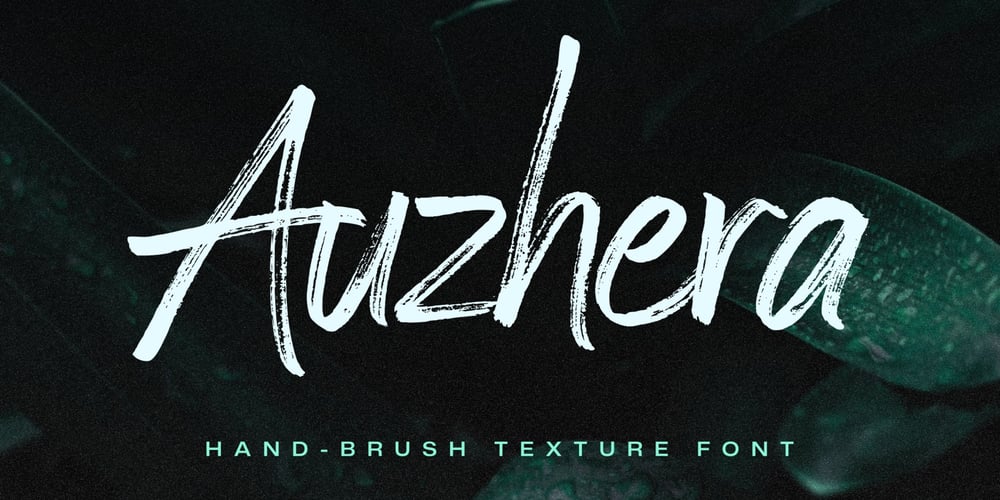
Auzhera Font Family was designed by Dimas Nirwan and published by Floves Type. Auzhera contains 1 styles and family package options. Looking to take your design game to the next level? Look no further than Auzhera Brush Font! Handmade from a real analog fude brush pen, this stunning handwritten font boasts a unique brushed texture that adds a natural, hand-written feel to any project.From bold headlines to understated designs, Auzhera Brush Font’s versatility is unmatched.Crafted with meticulous attention to detail, this font is perfect for creatives looking to add a touch of personality to their work.